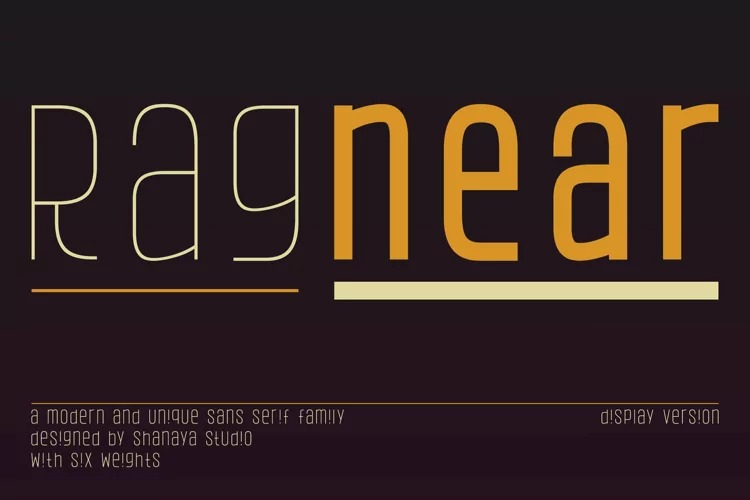
Ragnear Display Font
This is a modern sans serif display typeface that embodies elegance and charm in every character. The uniqueness of each letter gives a strong and charismatic impression. This font is suitable for websites, landing pages, posters, magazines, logos, logotypes, greetings, and more.